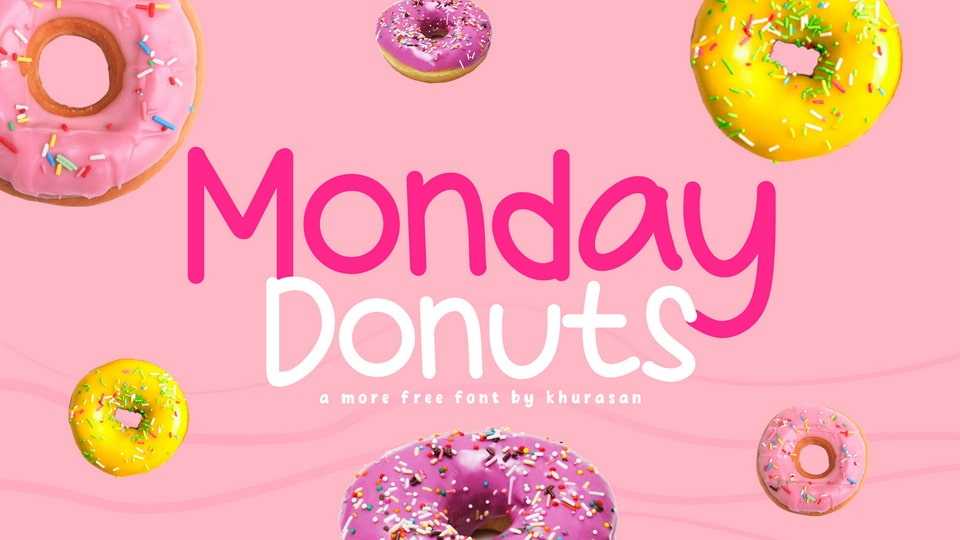
Download Monday Donuts font, a handwritten typeface designed to infuse your text with a touch of humor and a splash of light-hearted entertainment. Monday Donuts font is all about creating designs that make people laugh and brighten their day.